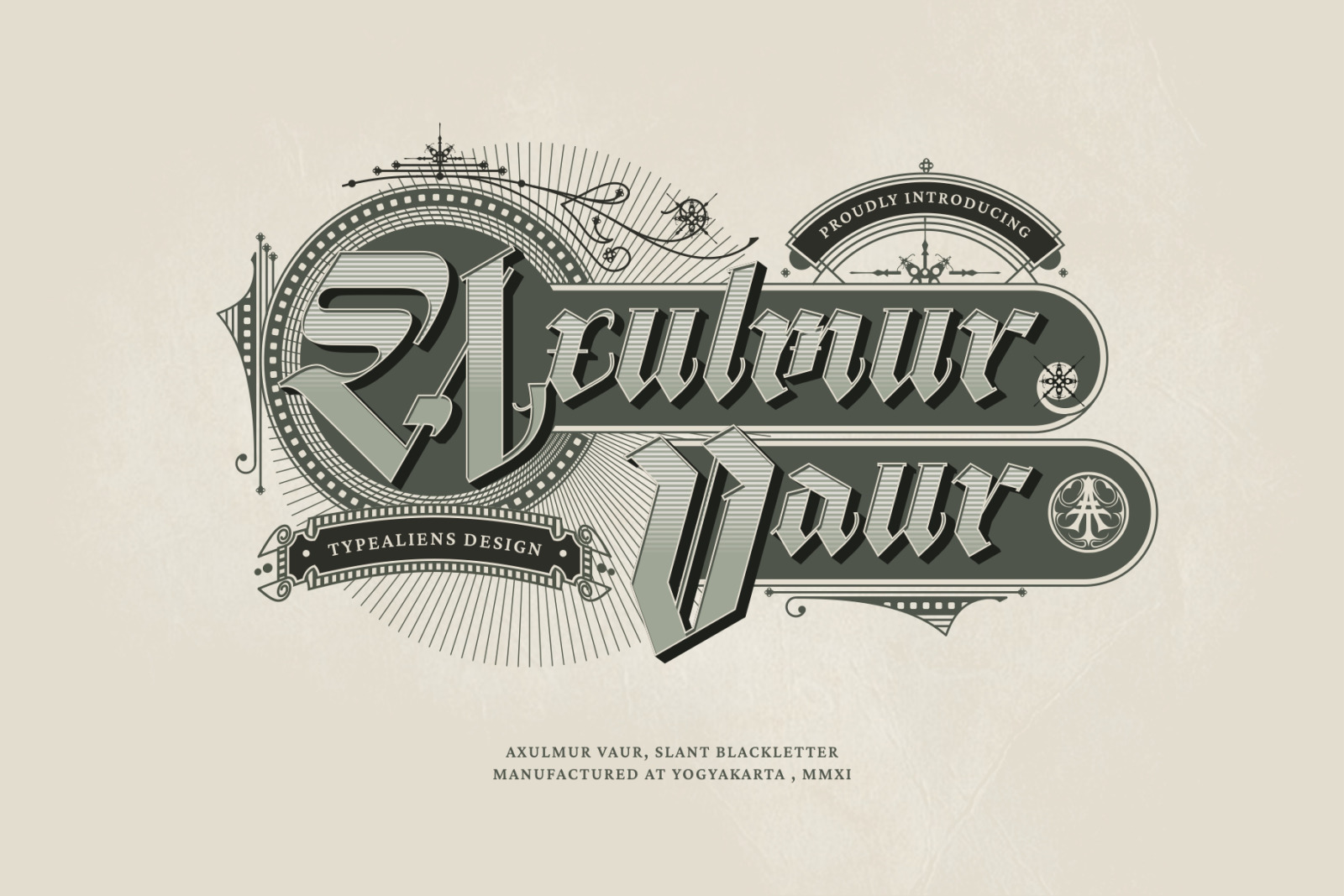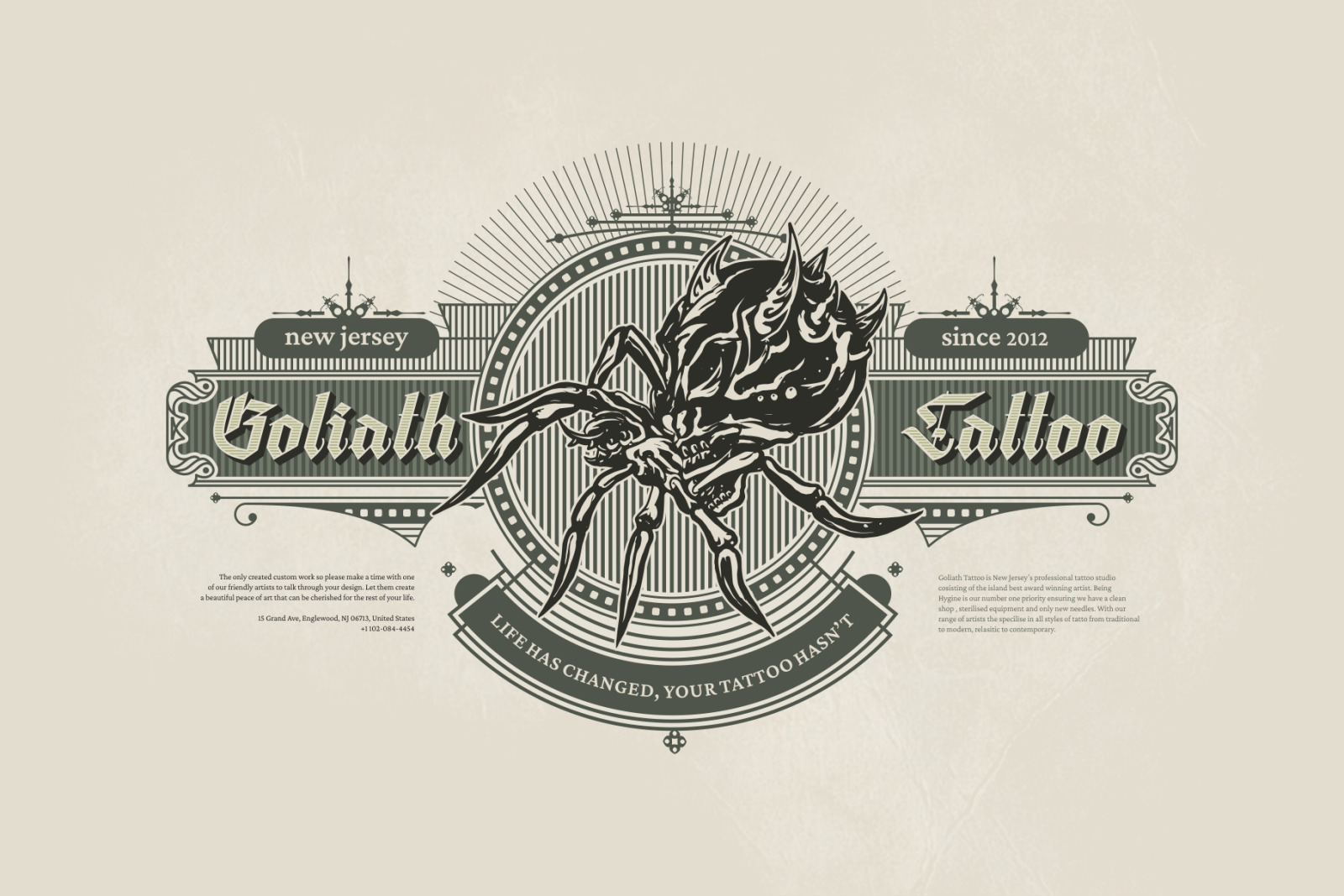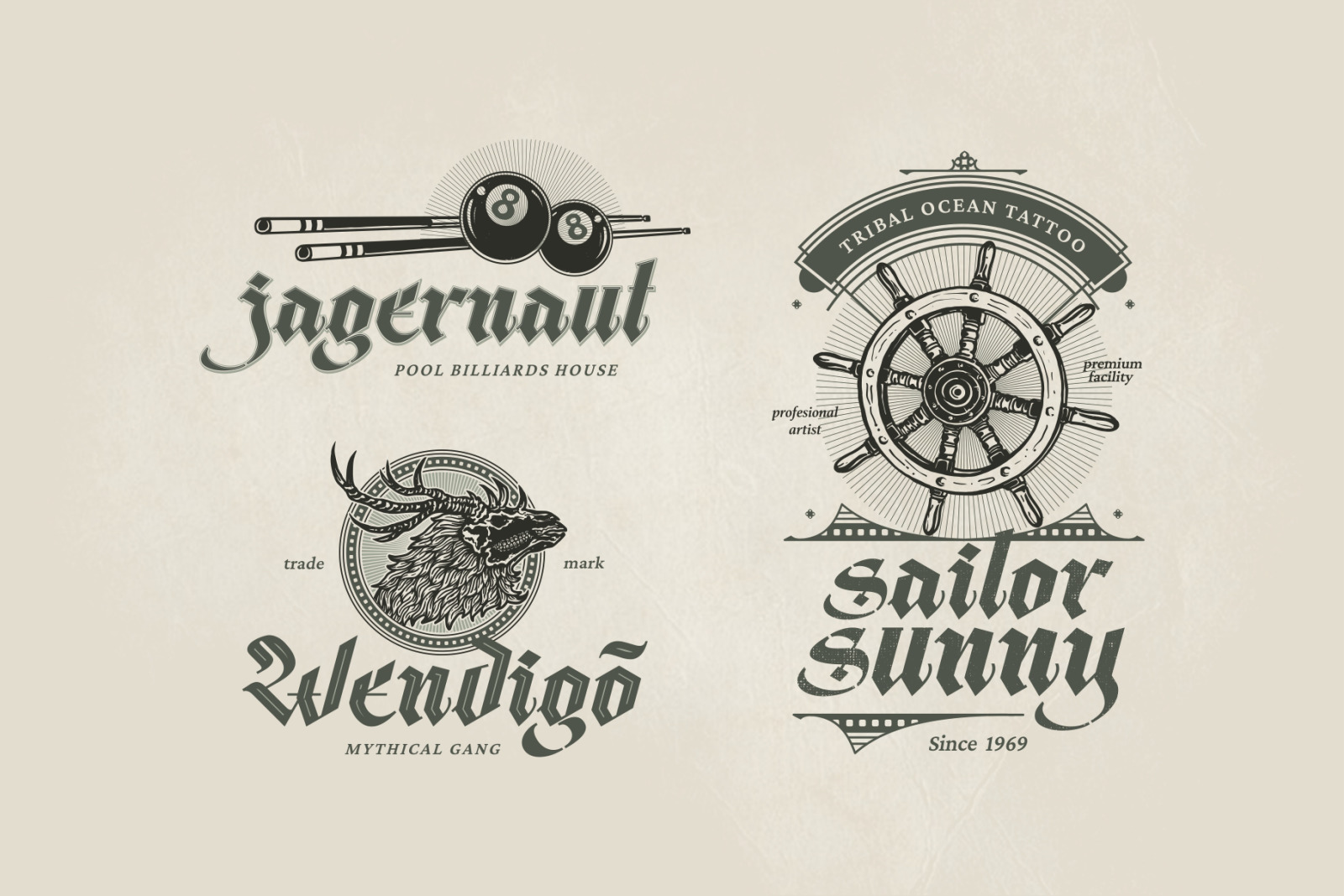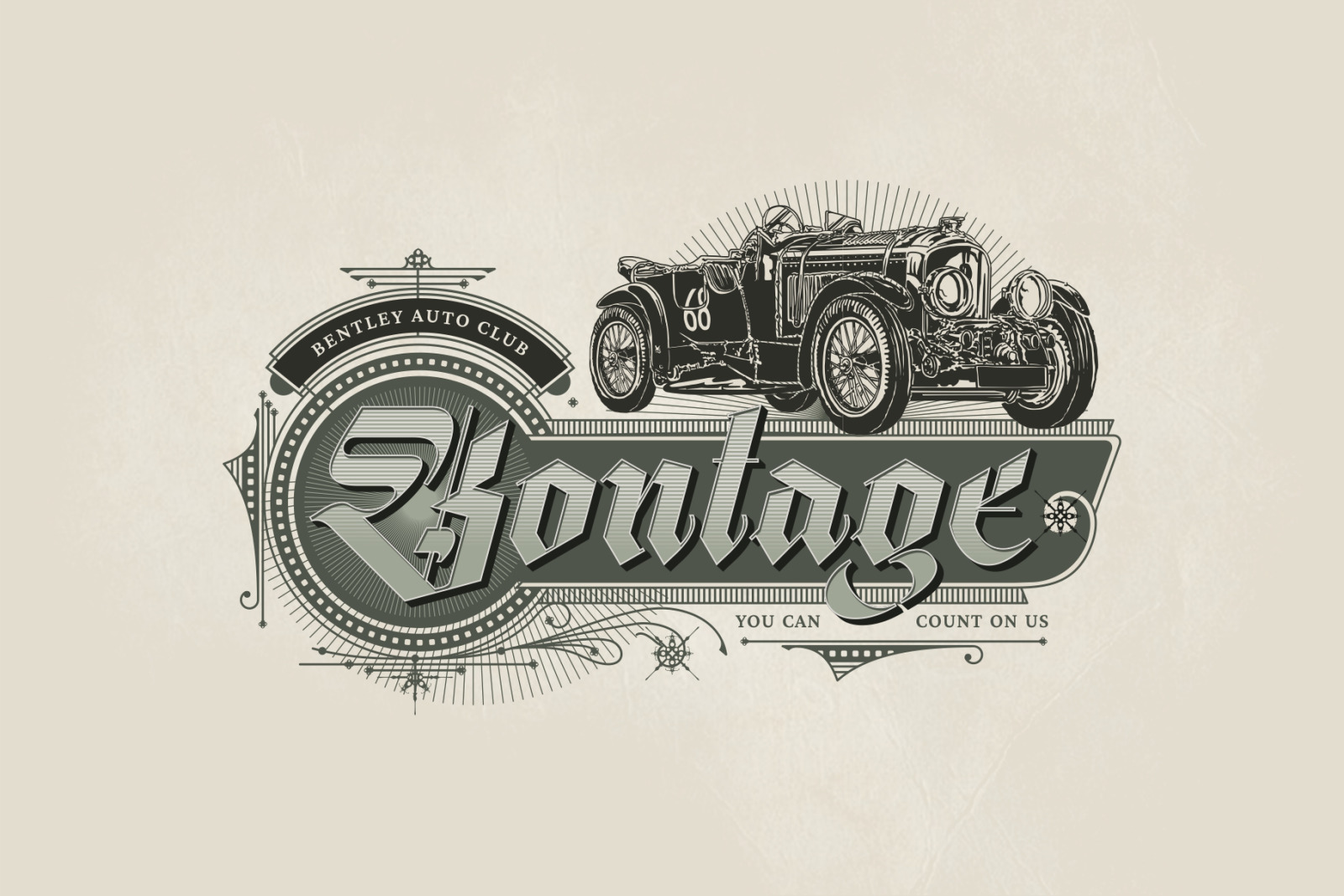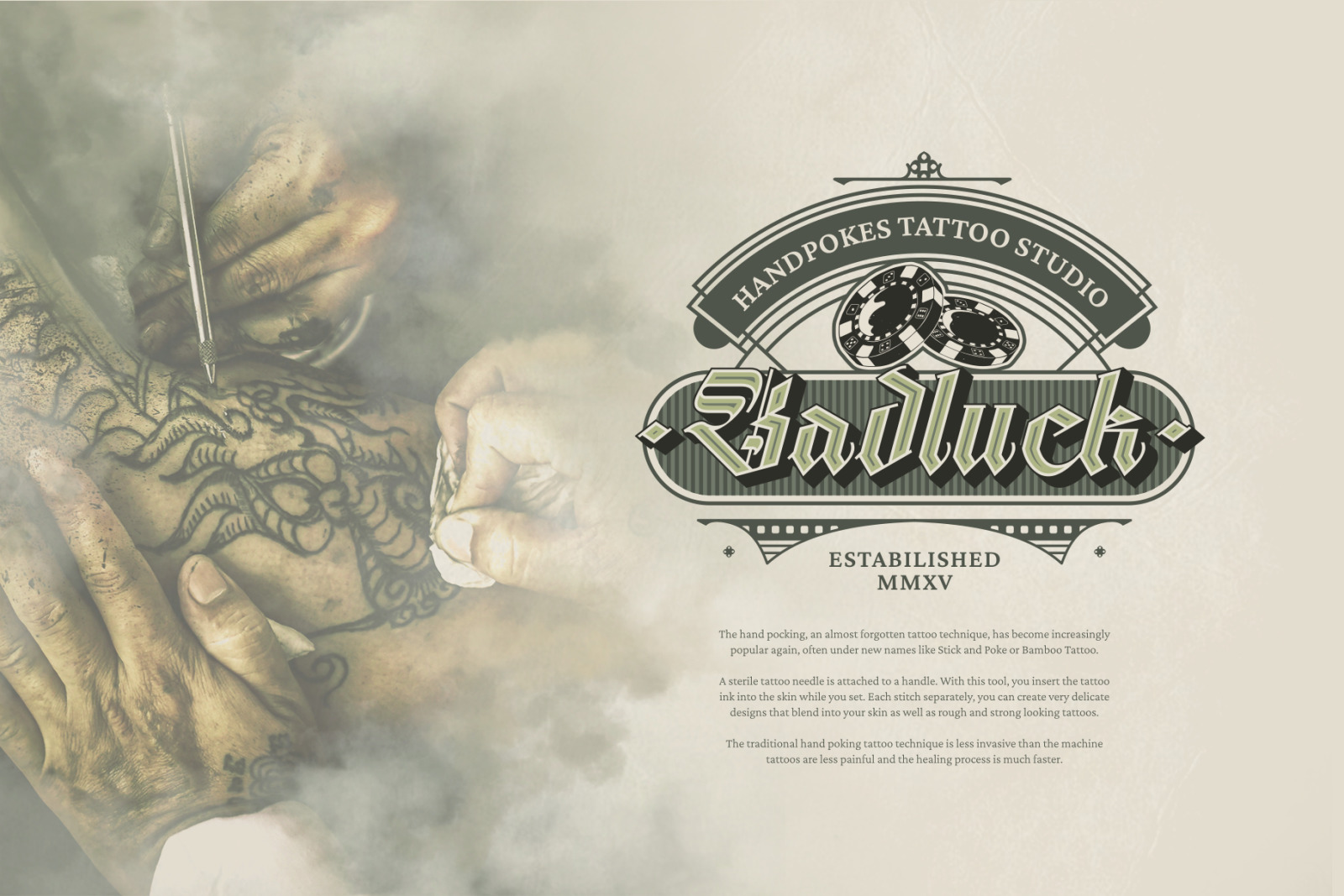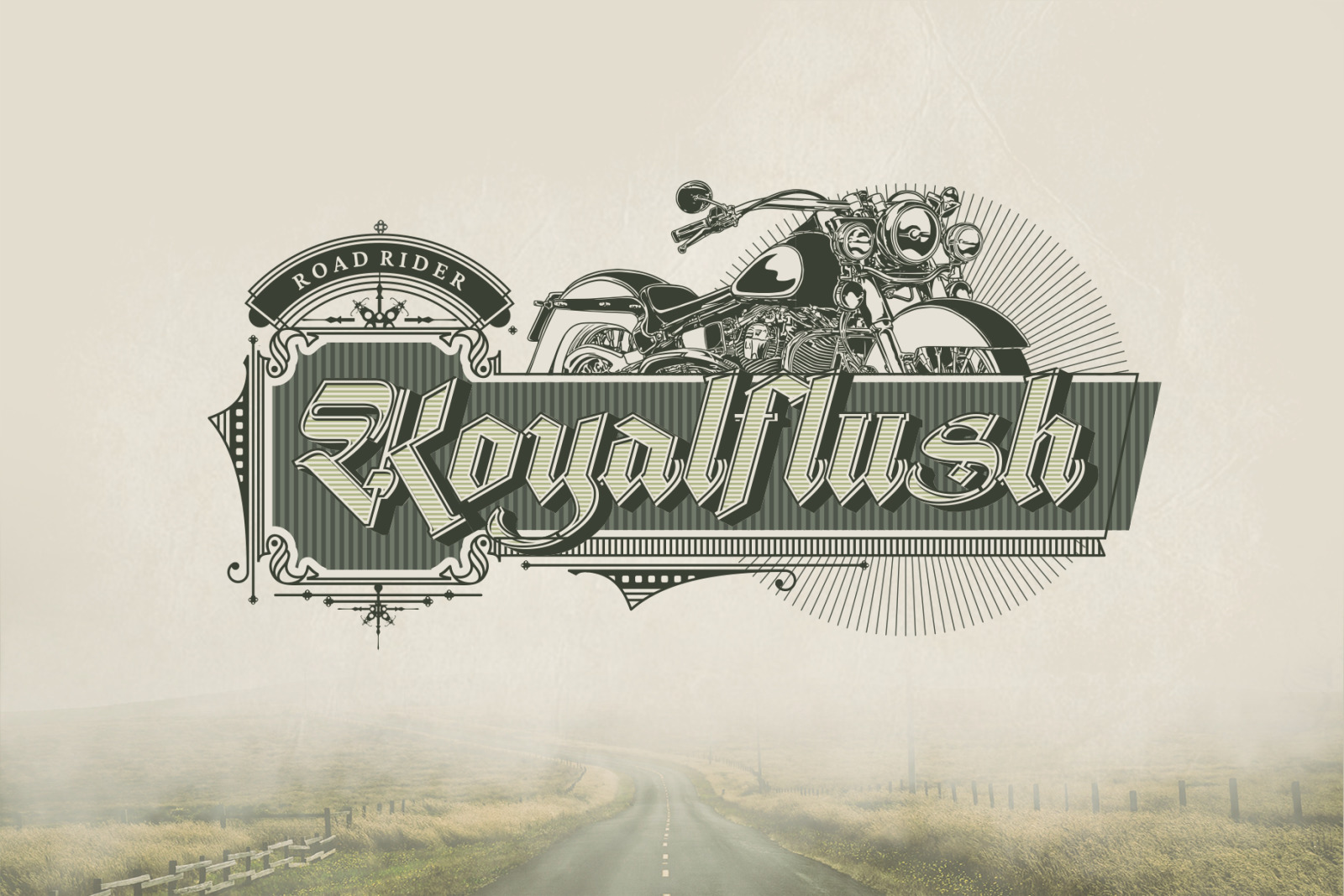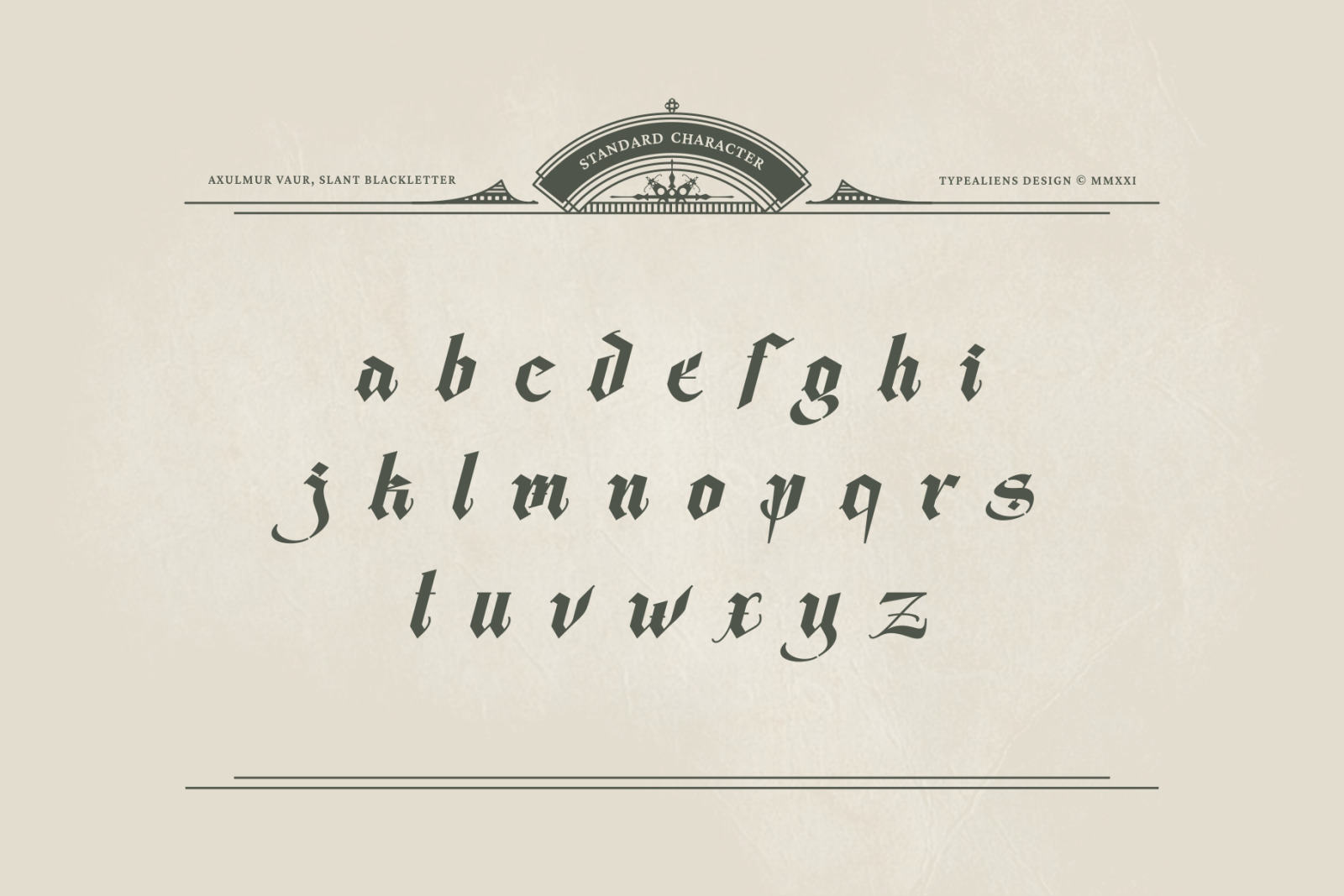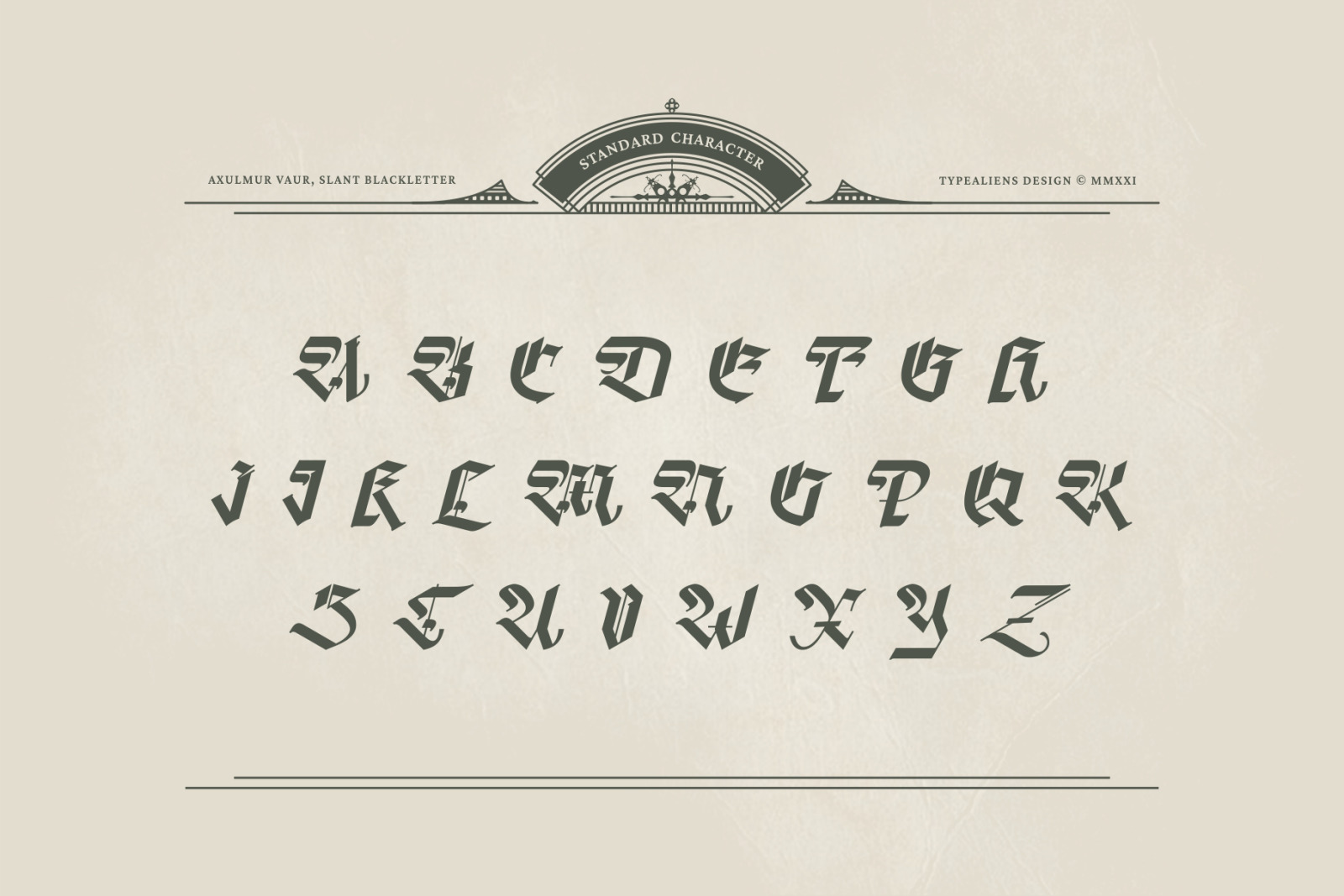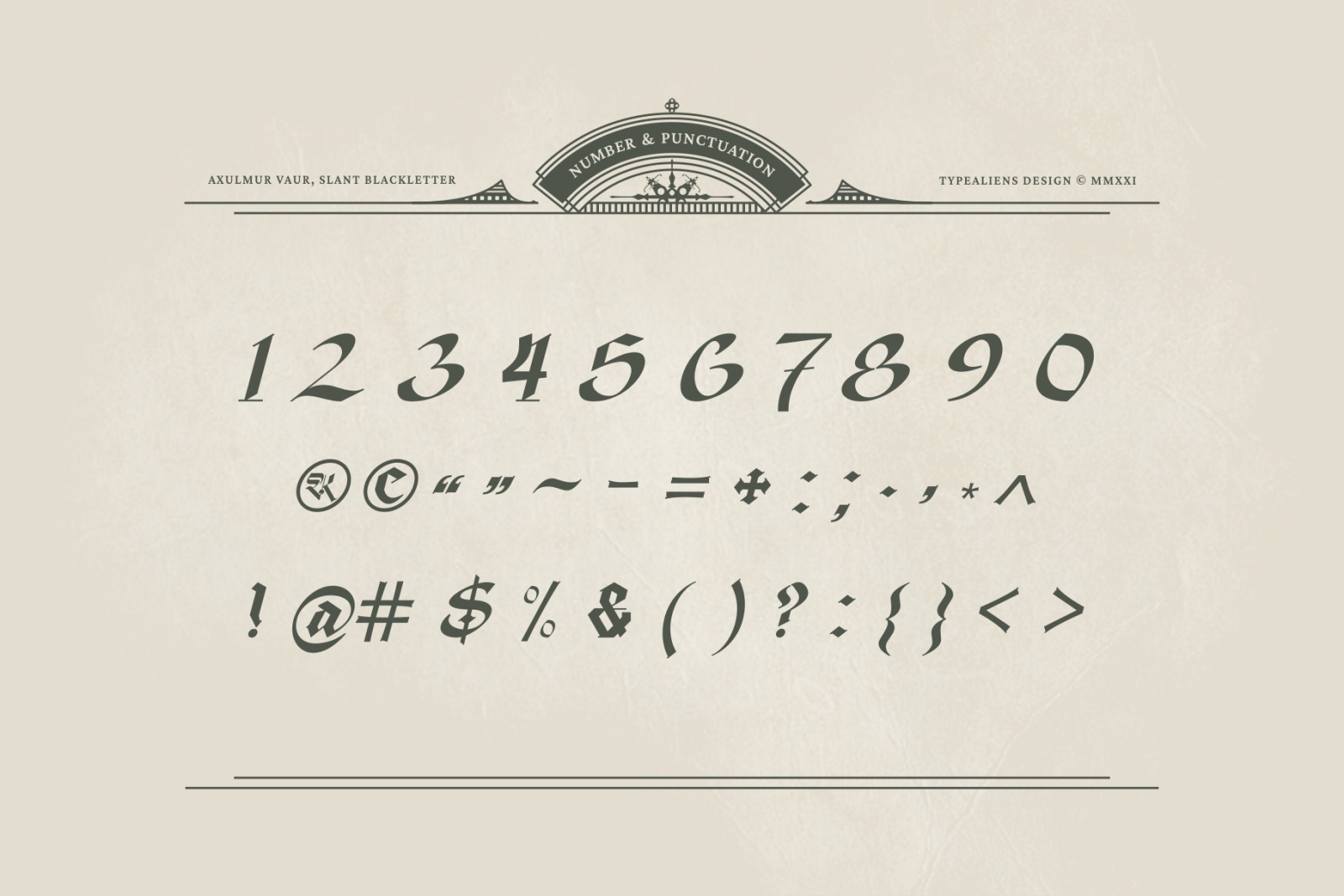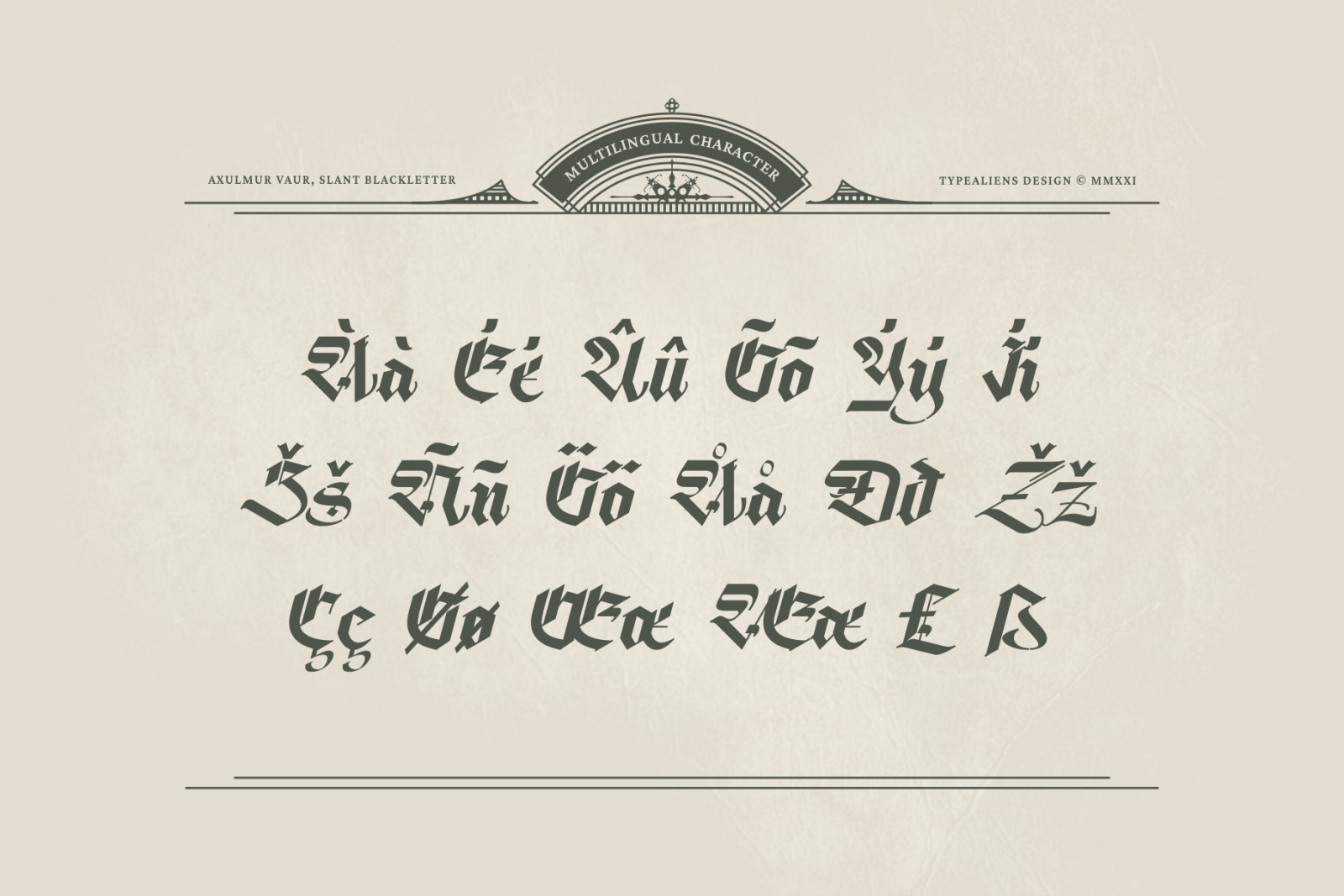
Axulmur Vaur Font
AXULMUR VAUR is a modern Blackletter font with a slanted style, quite unique and there are not many slanted Blackletter fonts like this, so it is very suitable to add to your Blackletter font collection, with a distinctive vintage and classic Blackletter style that will really support your logo design or your branding design, coupled with extra interesting illustrations and ornaments.
Comes with 2 kinds of extras in the form of illustrations and some really cool badge layouts.